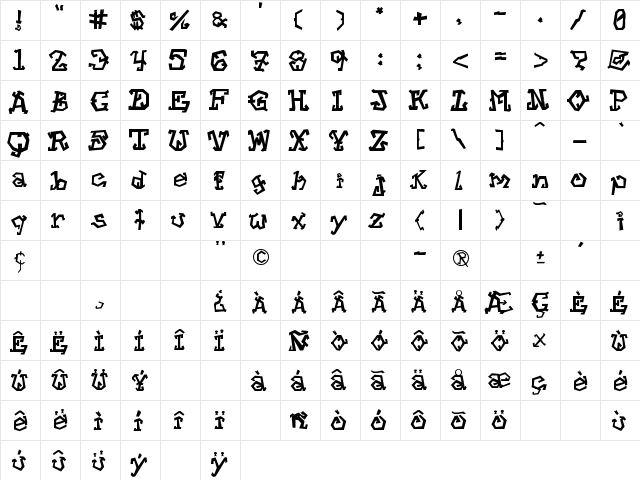
Street Voice!! Regular
Design Context for Street Voice!! Typeface
Street Voice!! is a composed and adaptable typeface that performs quietly and consistently across a wide range of design contexts.
Pro Tip: Use Street Voice!! in both headline and body roles to test its range before committing to a single application.